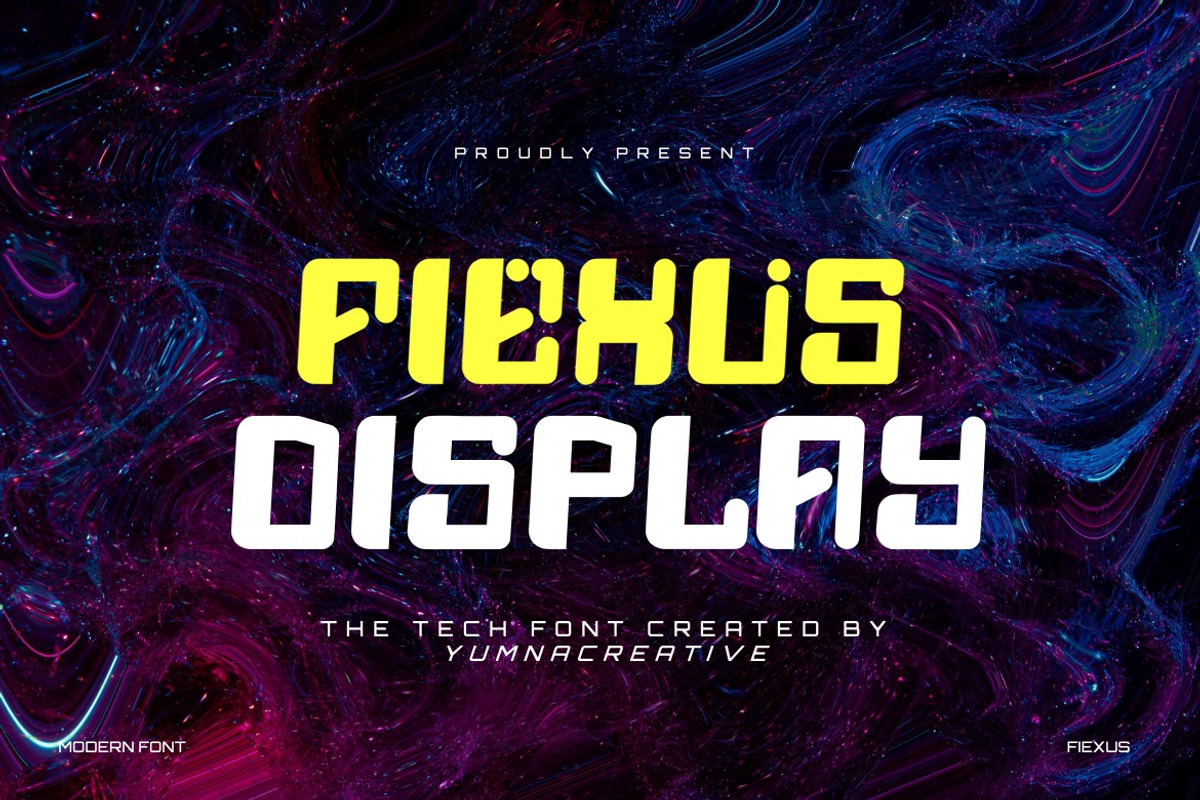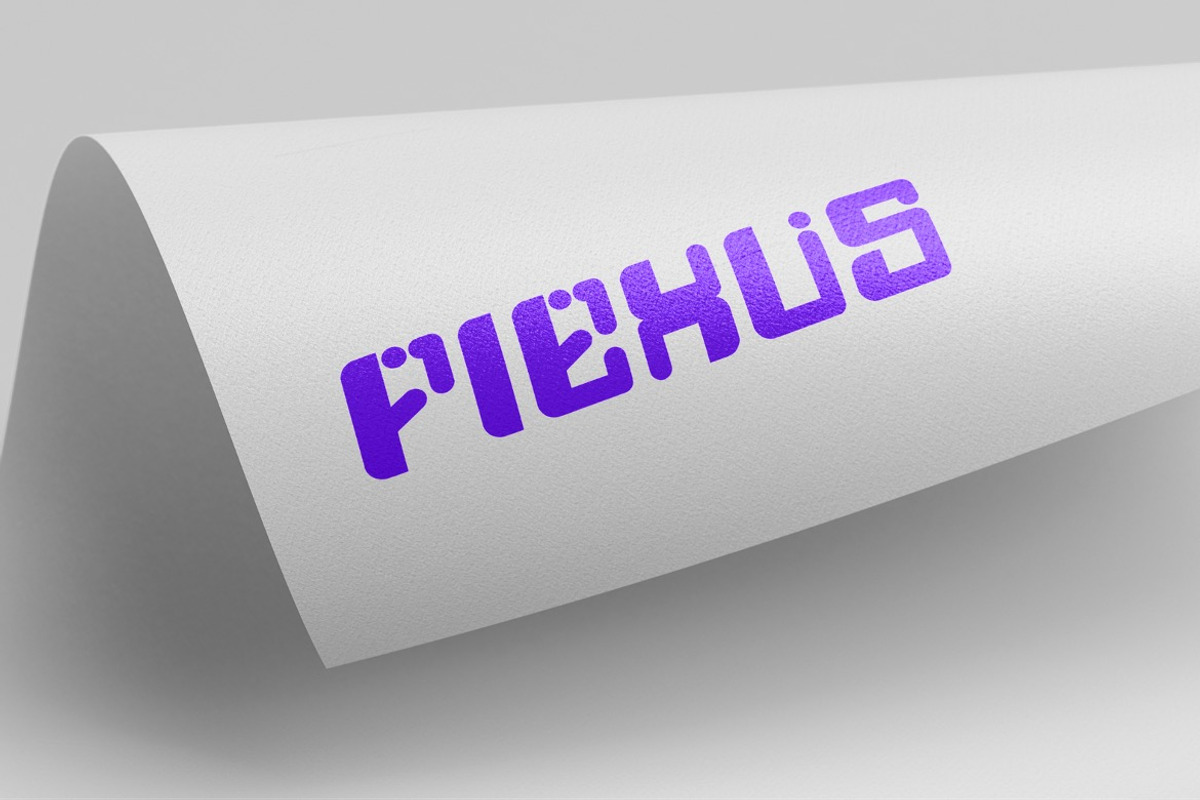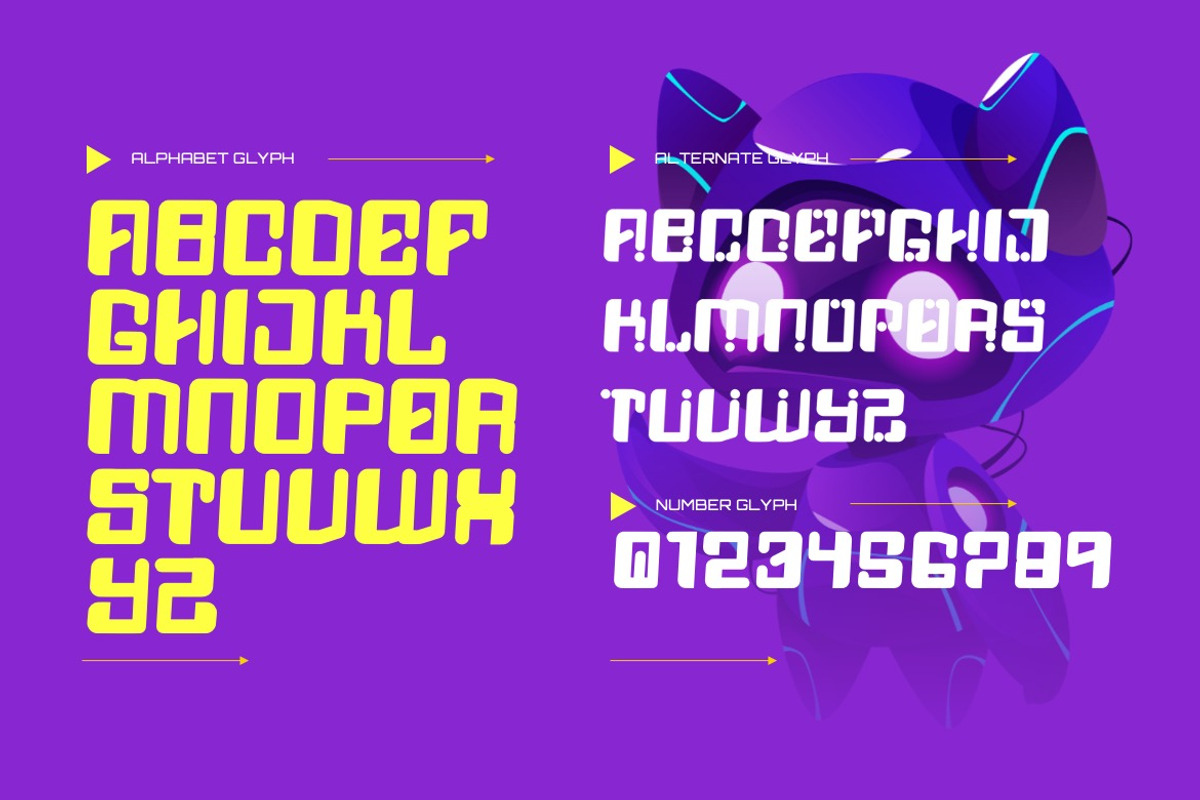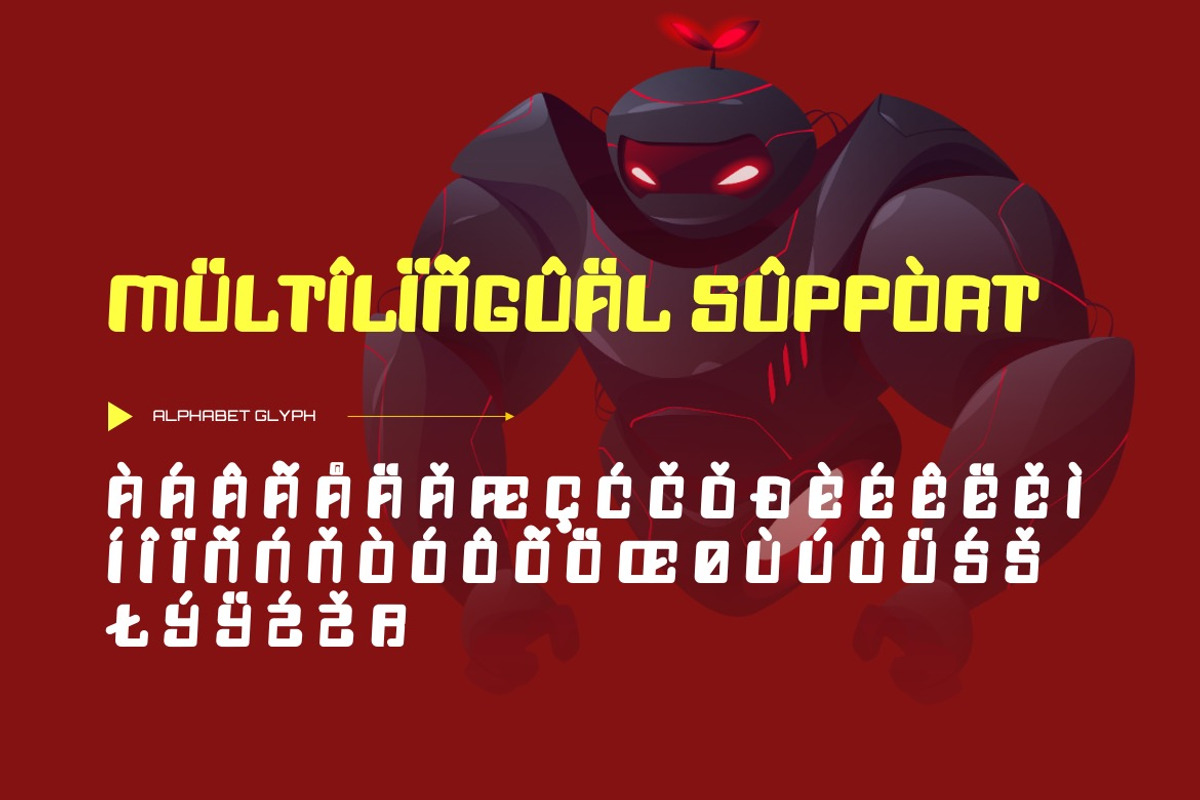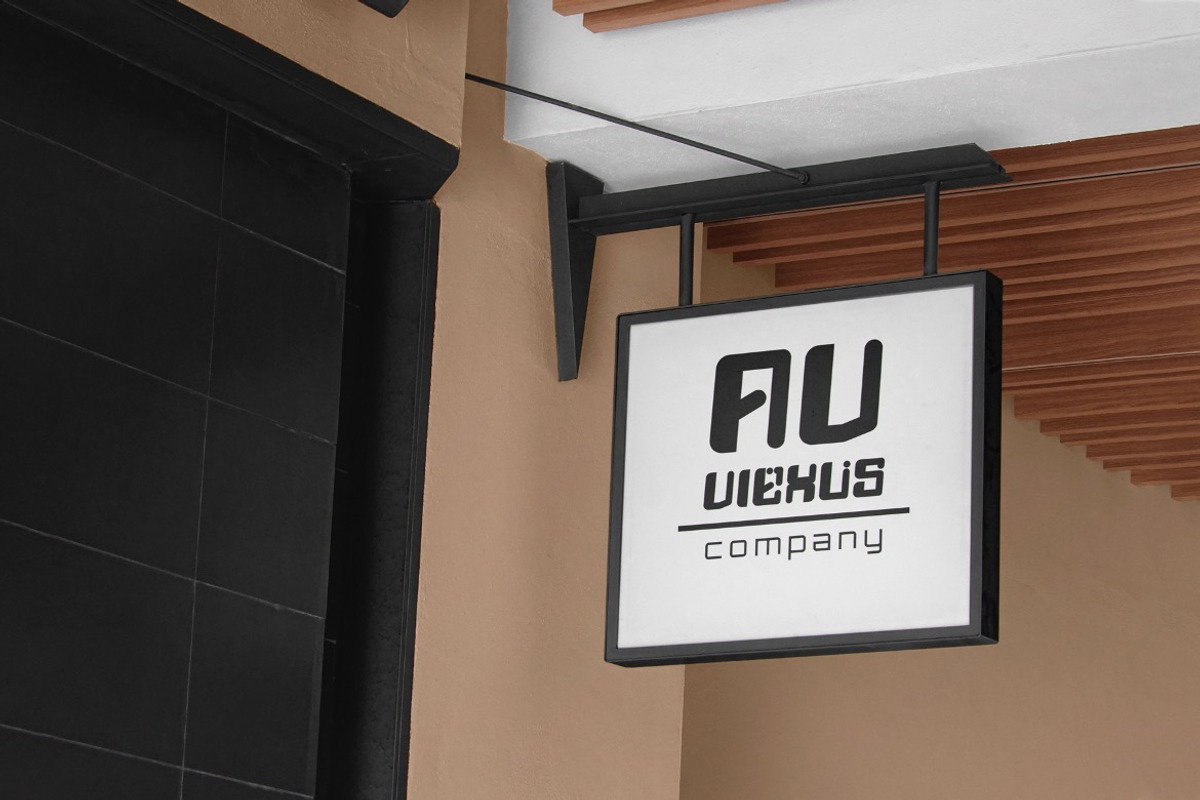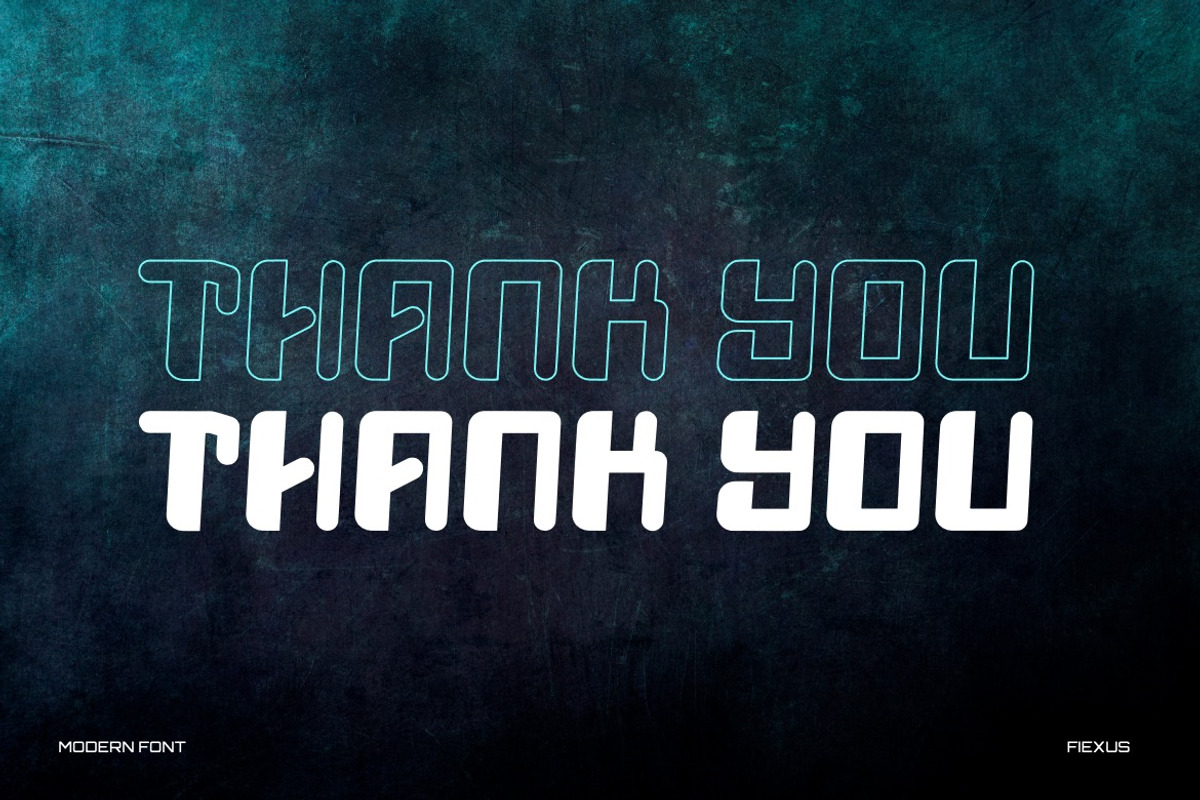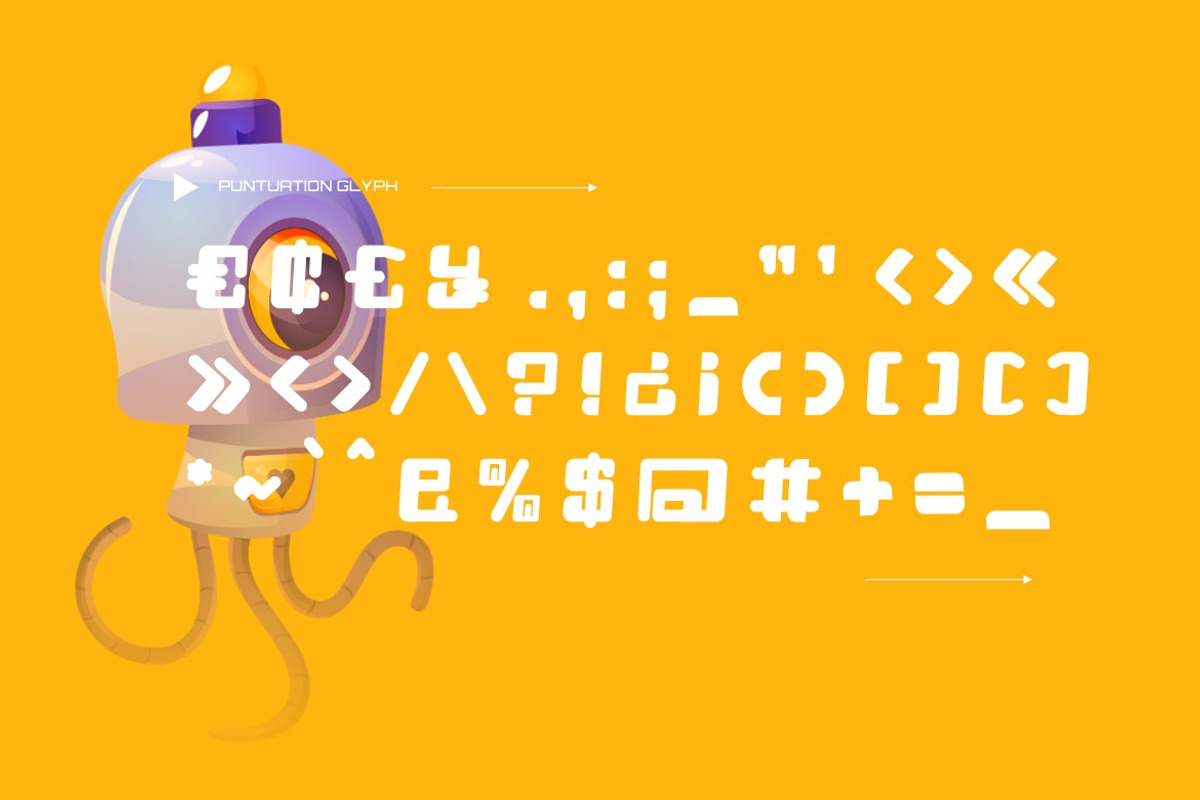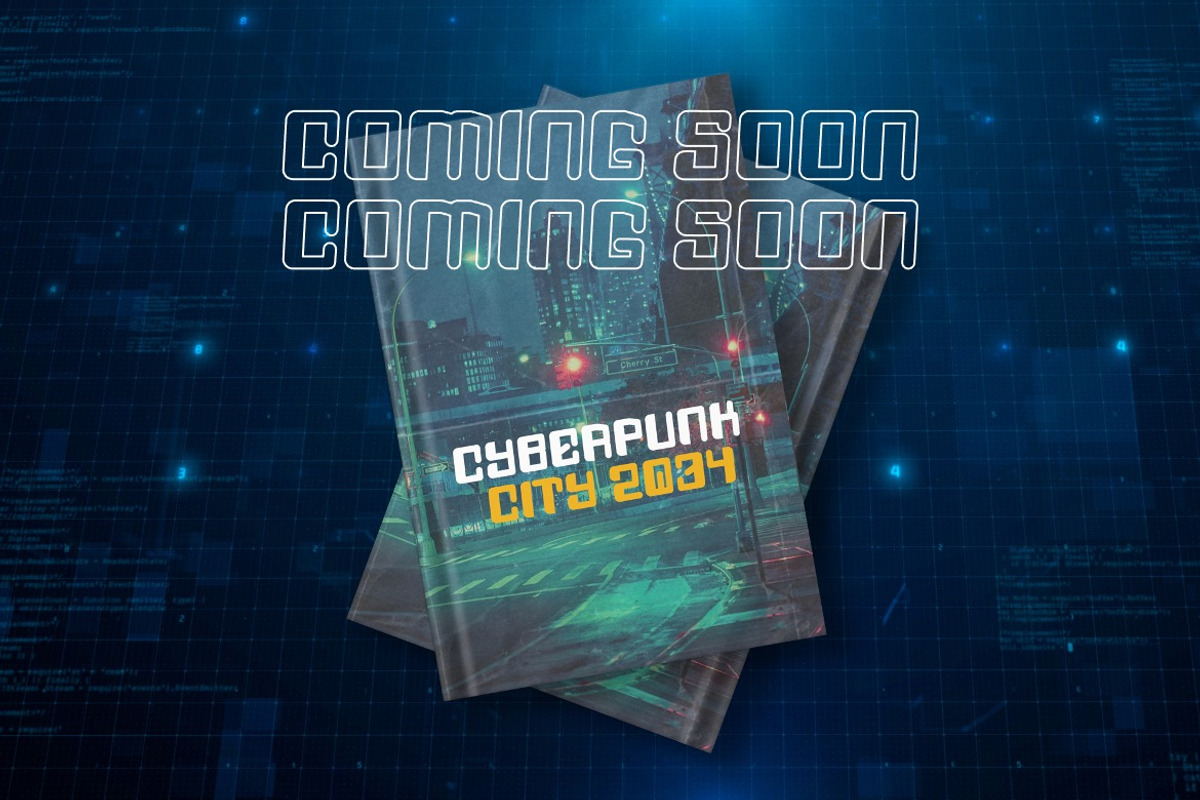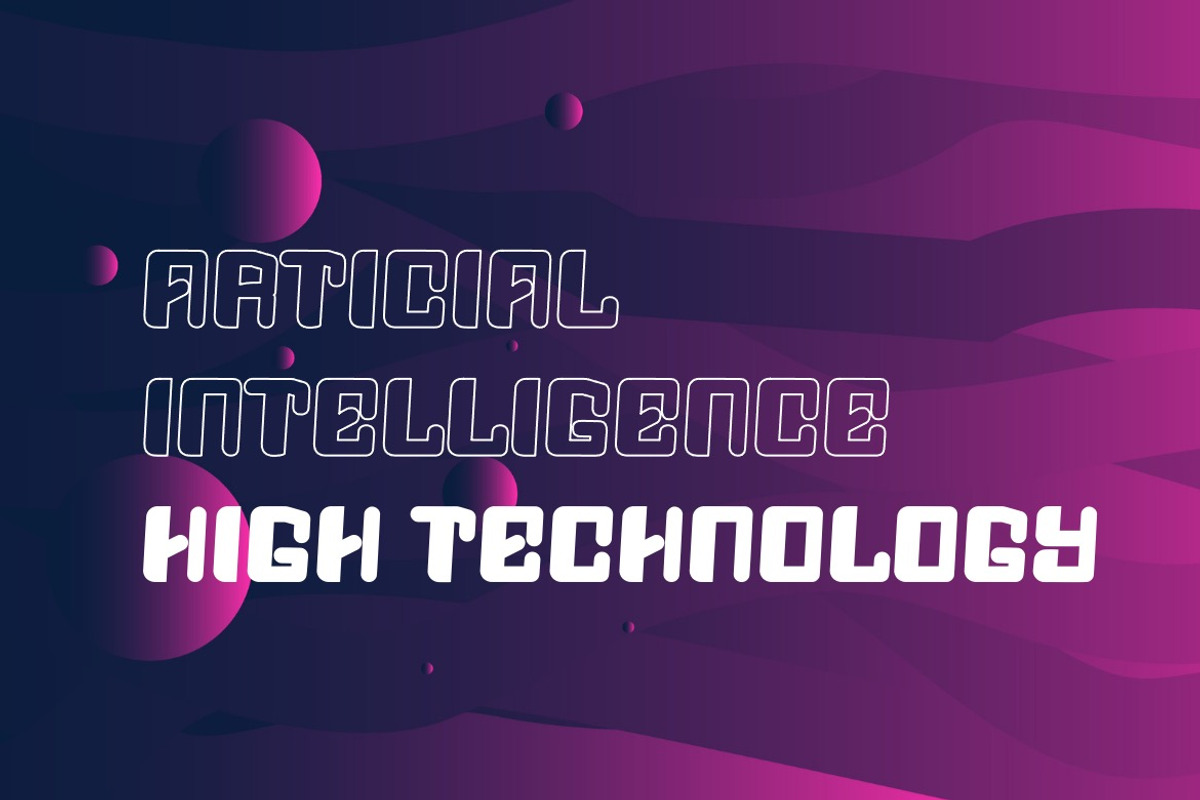
Fiexus - Tech Display Font
Introducing Fiexus - Tech Display Font
This Font is a delicate, elegant and flowing handwritten font. It has beautiful and well as a unique blend of ligatures a letter, so that the authors compose it with a and little swirly embedding, so that a modern font is formed and ready to make a statement by adding elegant and unique flair to your next design project. Add it to your most creative ideas and notice how it makes them come alive!